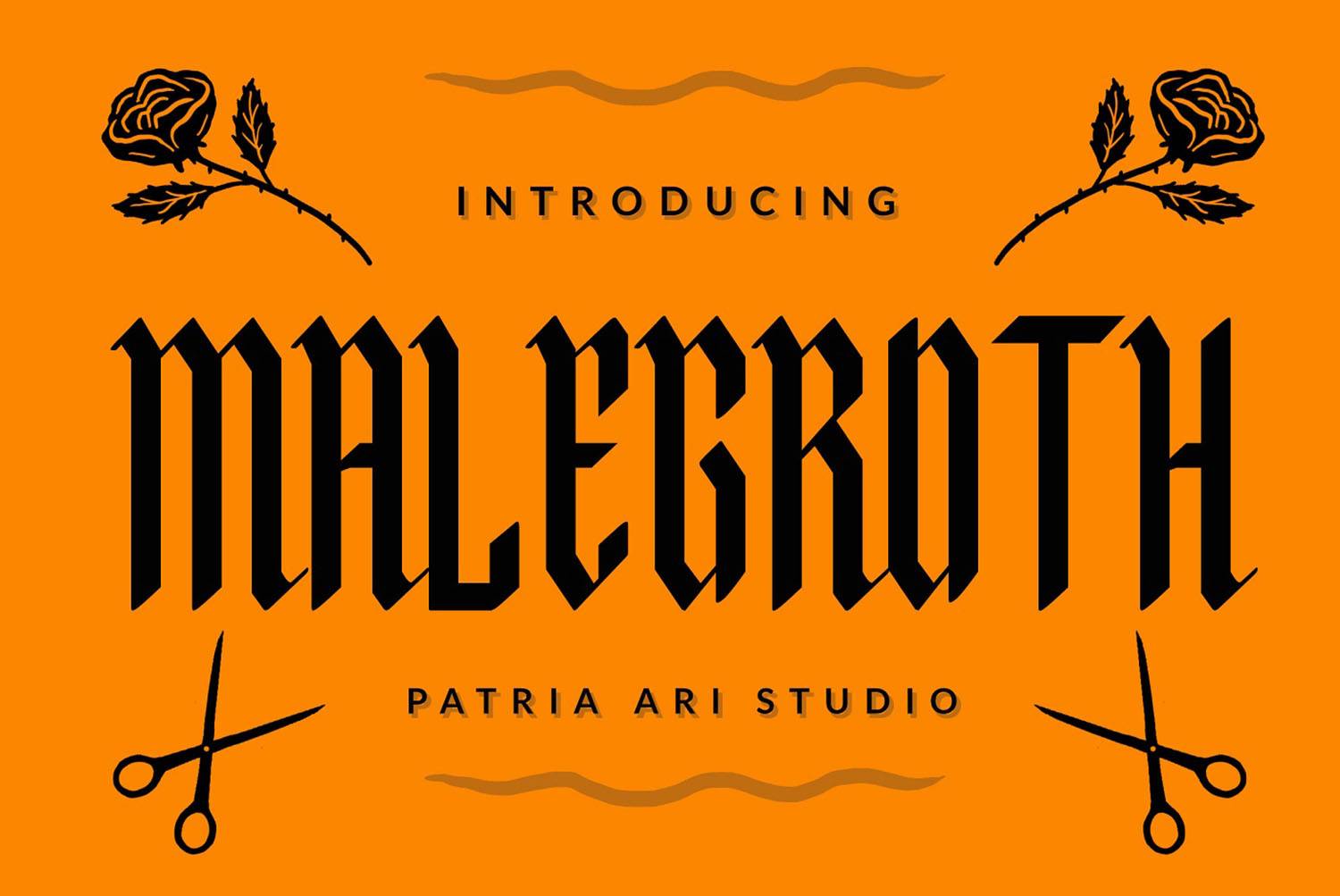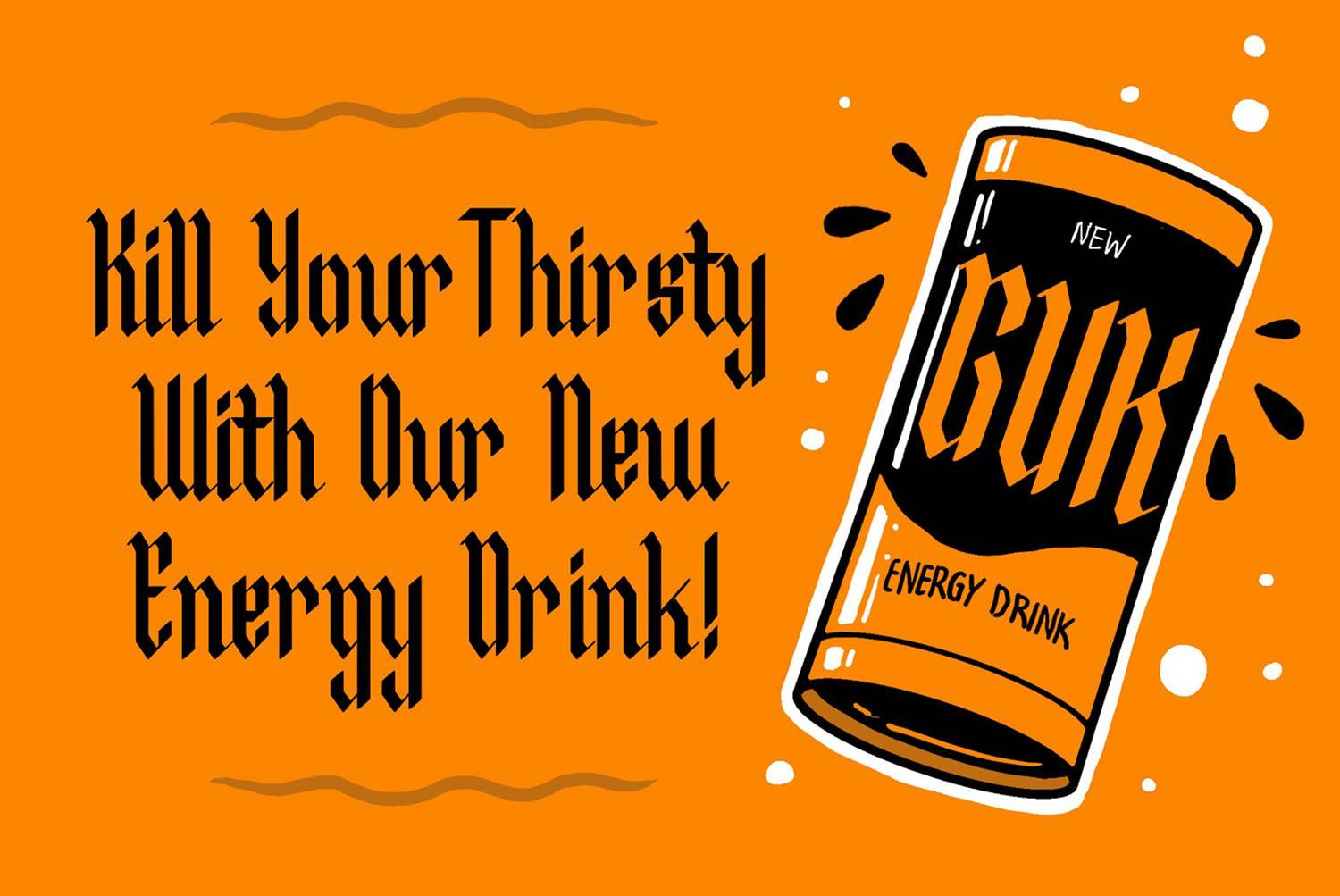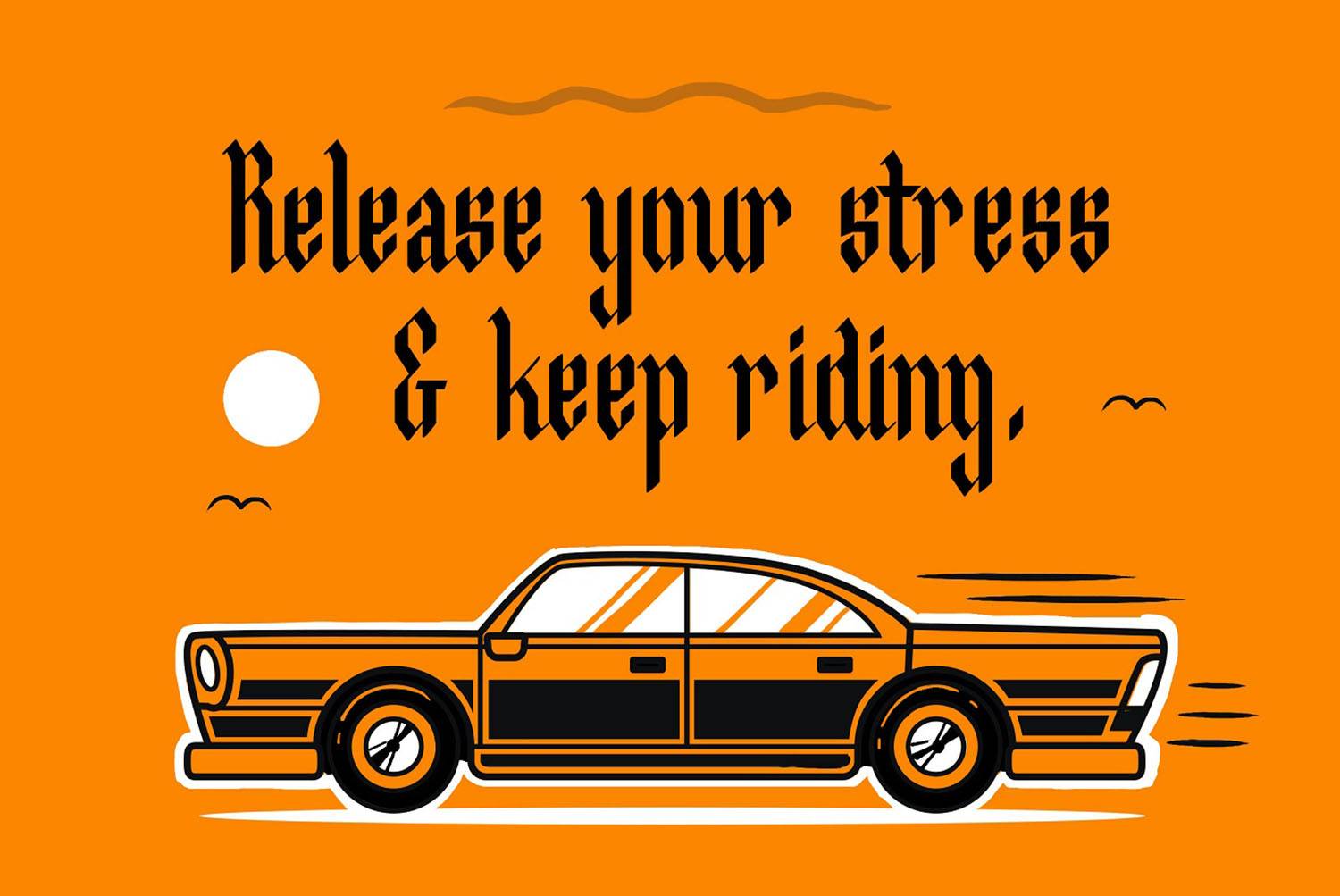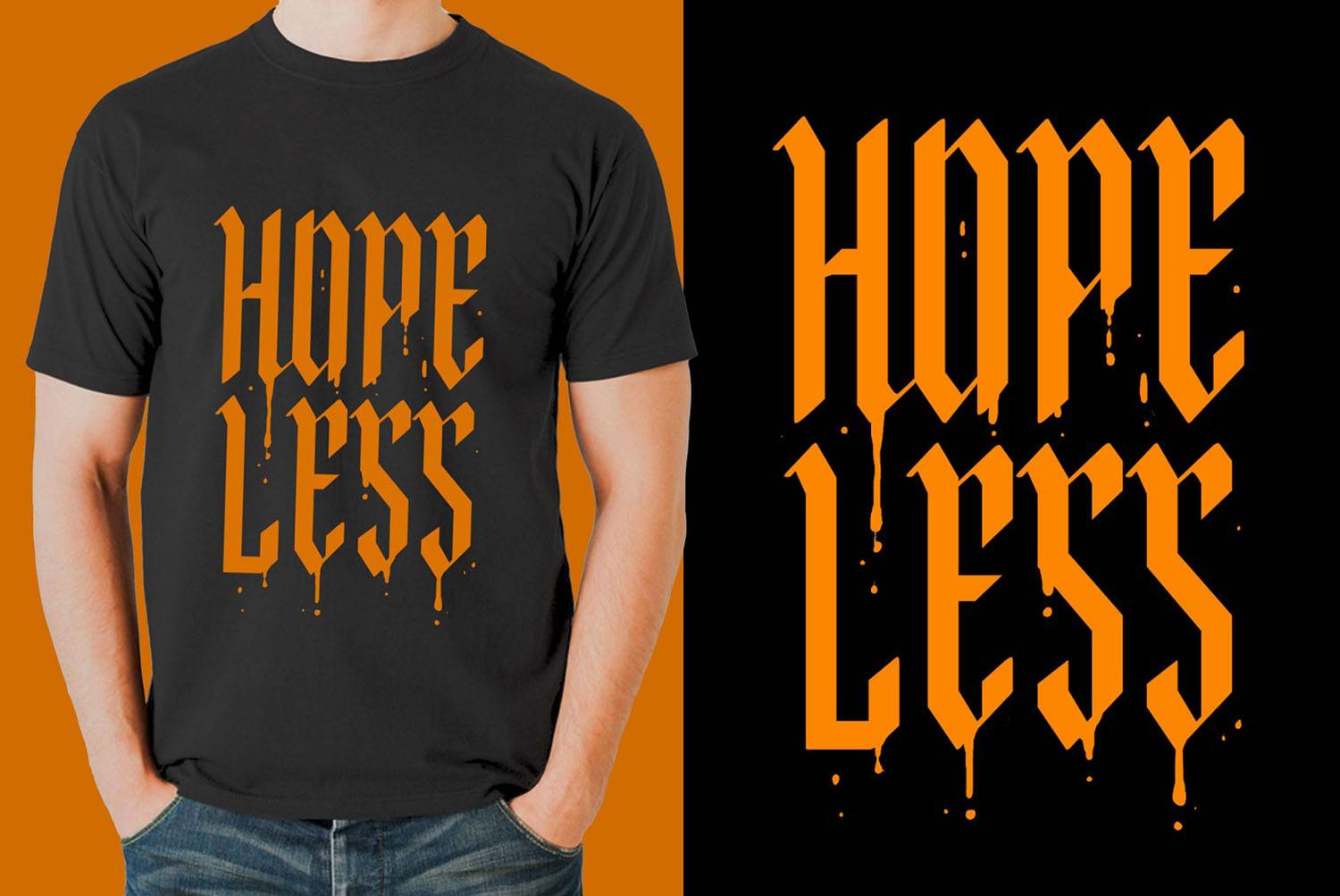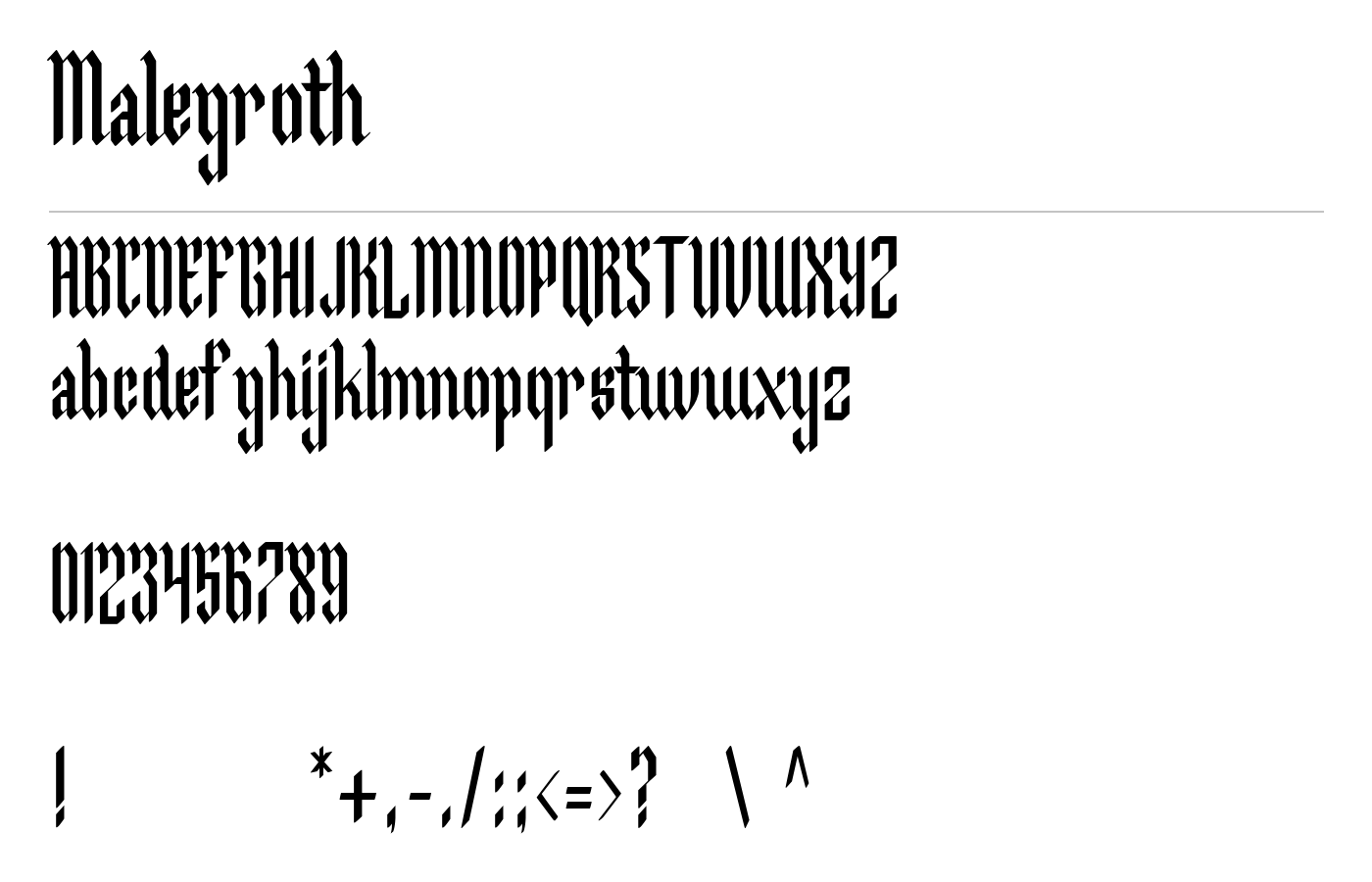
Malegroth is a bold, condensed blackletter font with a strong, gothic character that evokes a medieval and vintage feel. Its sharp, angular strokes and high contrast between thick and thin lines give it a striking and dramatic appearance, making it ideal for impactful headlines, logos, and branding that seek to convey tradition, mystique, or historical elegance. This font works best in creative contexts like posters, editorial designs, and fashion or luxury branding where a distinguished and attention-grabbing style is desired.
Malegroth Font
About Malegroth Font
| Font family | Malegroth Font |
| Designer | Patria Ari Wijonarko |